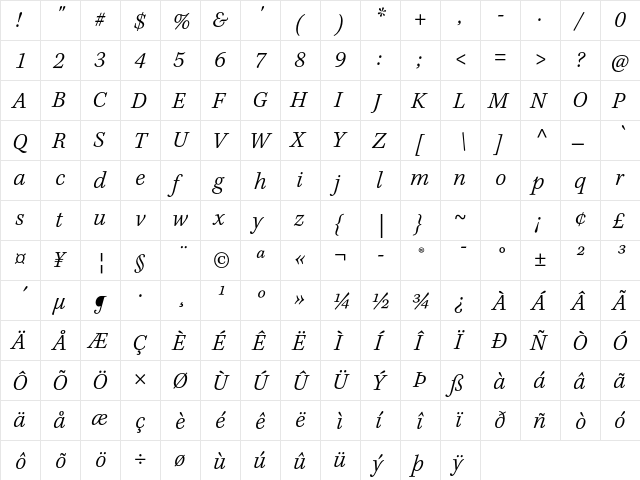
Kepler Std Light Italic Caption Font Preview
Kepler Std Light Italic Caption
Kepler Std Light Italic Caption Font Details
| Style | Light Italic Caption |
| Designer | Robert Slimbach |
Design Context for Kepler Std Typeface
Kepler Std takes a measured approach to typography — its balanced proportions and neutral character make it a reliable workhorse for both digital and print work. The dynamic lean of this cut emphasises speed and emphasis in any layout. The delicate stroke weight brings airiness and refinement to layouts.